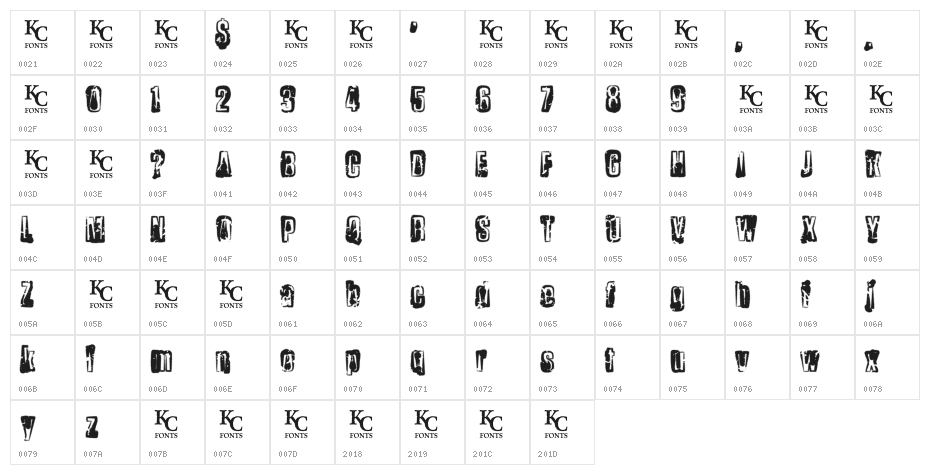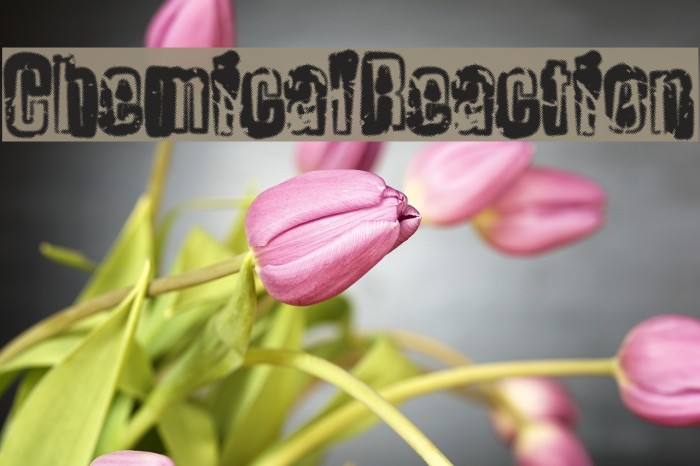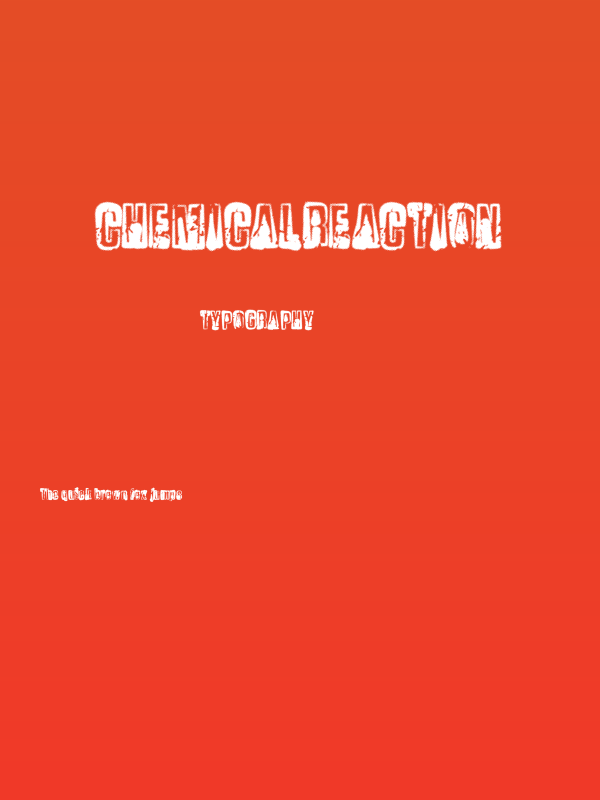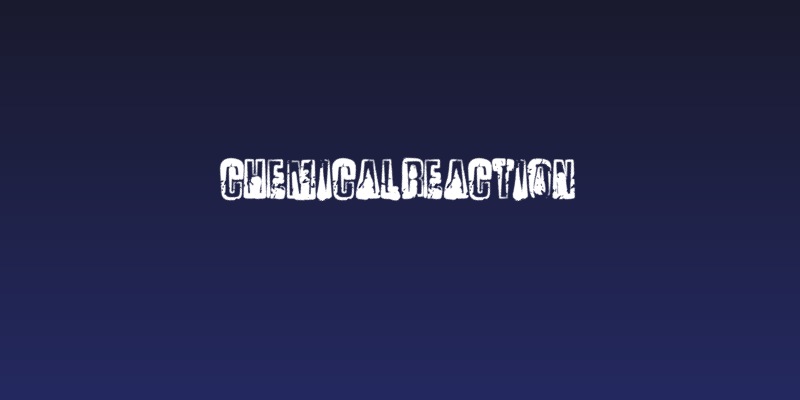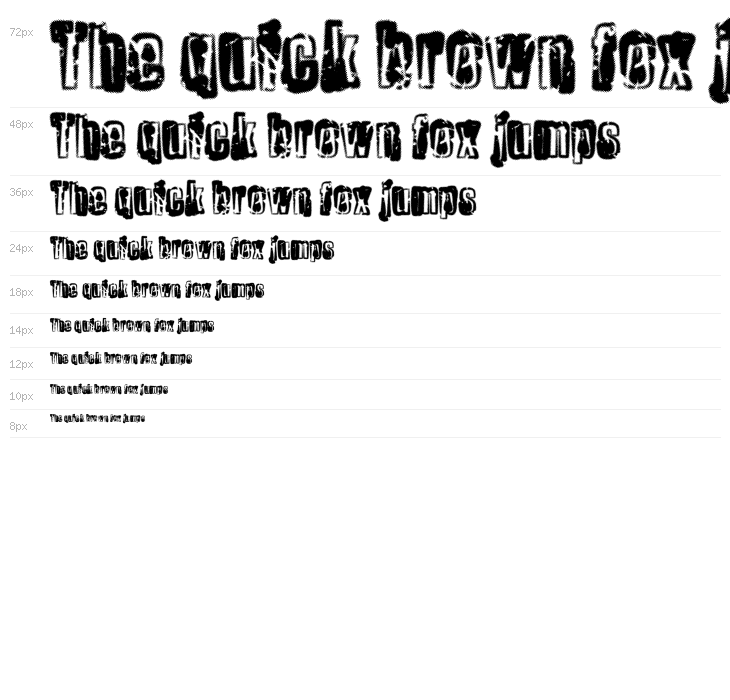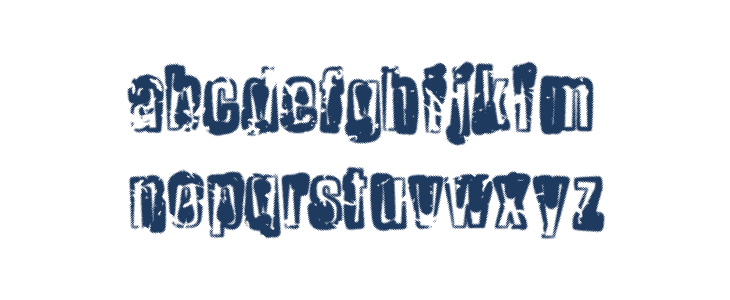
ChemicalReaction Font
ChemicalReaction Description
This font features a bold, distressed style with a grunge effect, giving it a rugged and edgy appearance. The characters are heavily textured, with irregular edges and a worn-out look, reminiscent of graffiti or urban street art. The uppercase and lowercase letters maintain a consistent style, while the numbers and special characters follow the same distressed theme. This font is designed to stand out, making it ideal for projects that require a strong visual impact.
| Overall Style | Grunge, Urban, Edgy |
| Use Case | Headlines, Posters, Branding |
| Proposed Projects | Ideal for music album covers, posters, streetwear branding, and edgy graphic designs. |